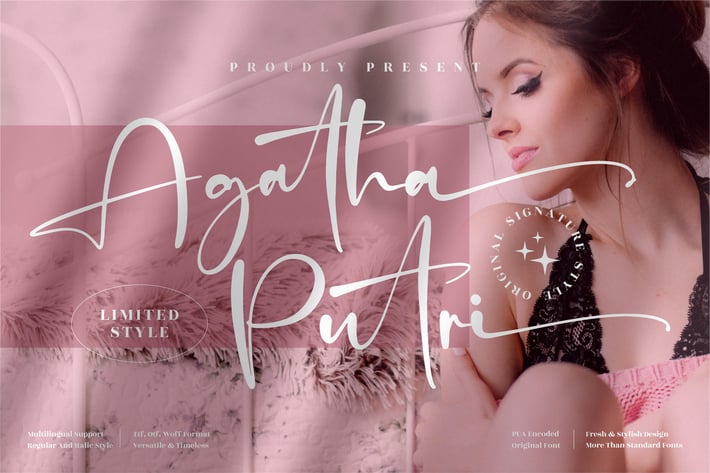
Agatha Putri Signature Font
Agatha Putri is an elegant signature-style font that blends sophistication with modern charm. Designed to replicate natural handwriting with stylish strokes, it is versatile for both digital and print designs. Perfect for those seeking a personal and luxurious feel, this font will add a touch of class to branding, invitations, social media, and more.
+ Stylish handwritten script with flowing lines
+ Multilingual support for diverse projects
+ Regular & italic style options
+ PUA encoded for easy access to alternate characters
+ Branding & logo design
+ Wedding invitations & stationery
+ Social media posts & promotions
+ Beauty, fashion, and lifestyle projects
+ Greeting cards, posters, and quotes
Bring a touch of grace and personality to your designs with Agatha Putri — a signature font that speaks elegance in every stroke.